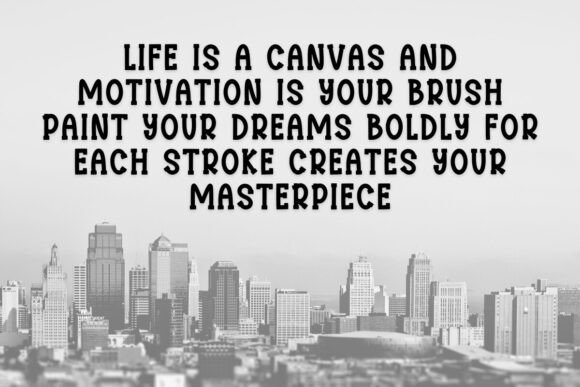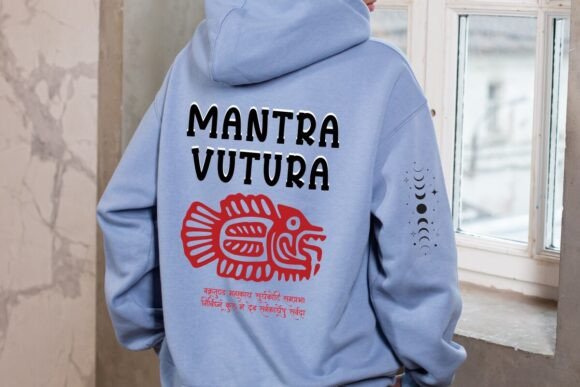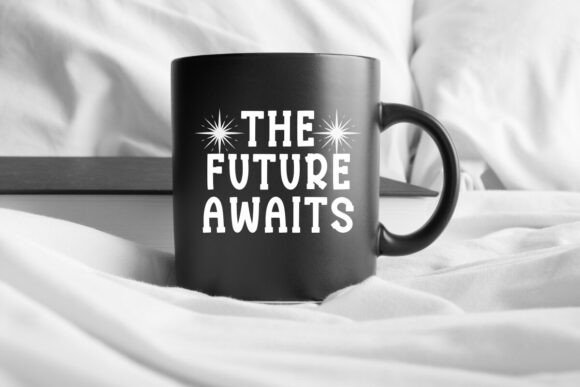
Stars Rustic Font
Stars Rustic is a thick and playful slab serif font. The wide characters and chunky serifs make this font ideal for eye-catching designs. You can use it for headlines, t-shirt typography, banners, product labels, and many more.